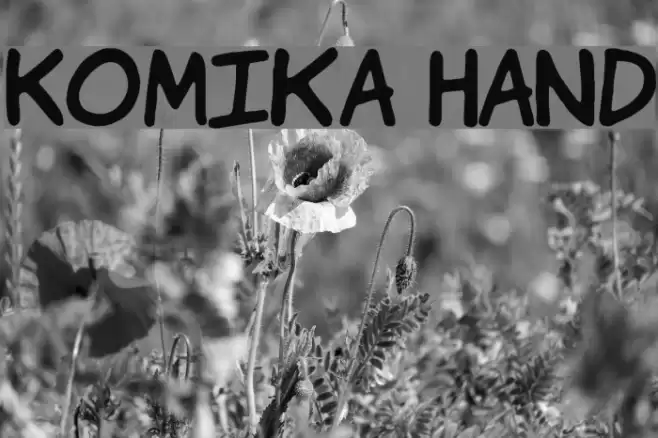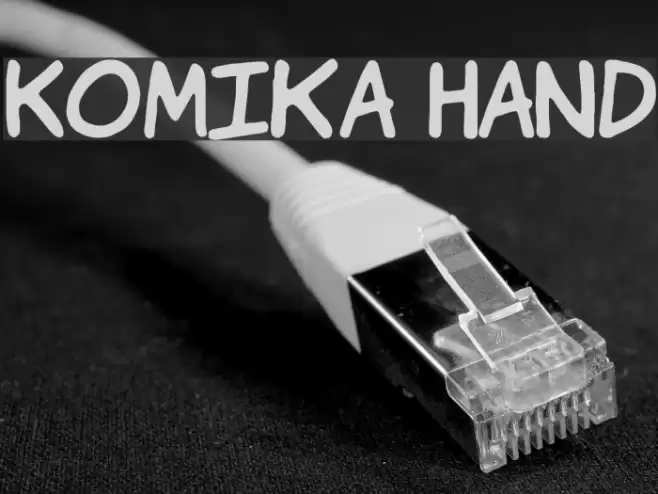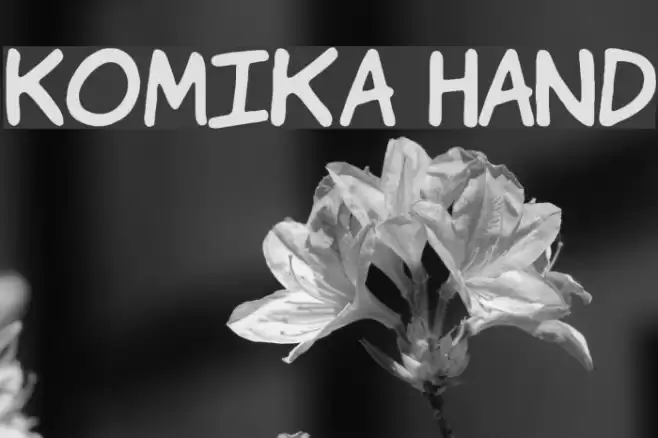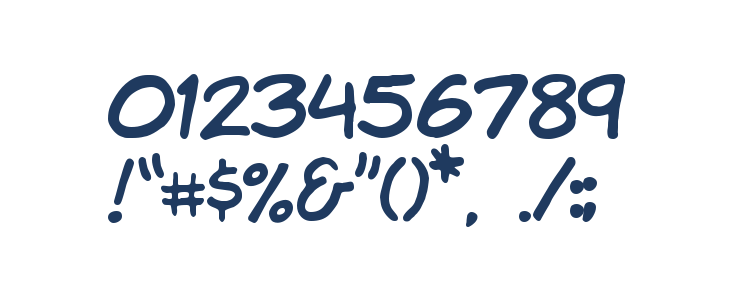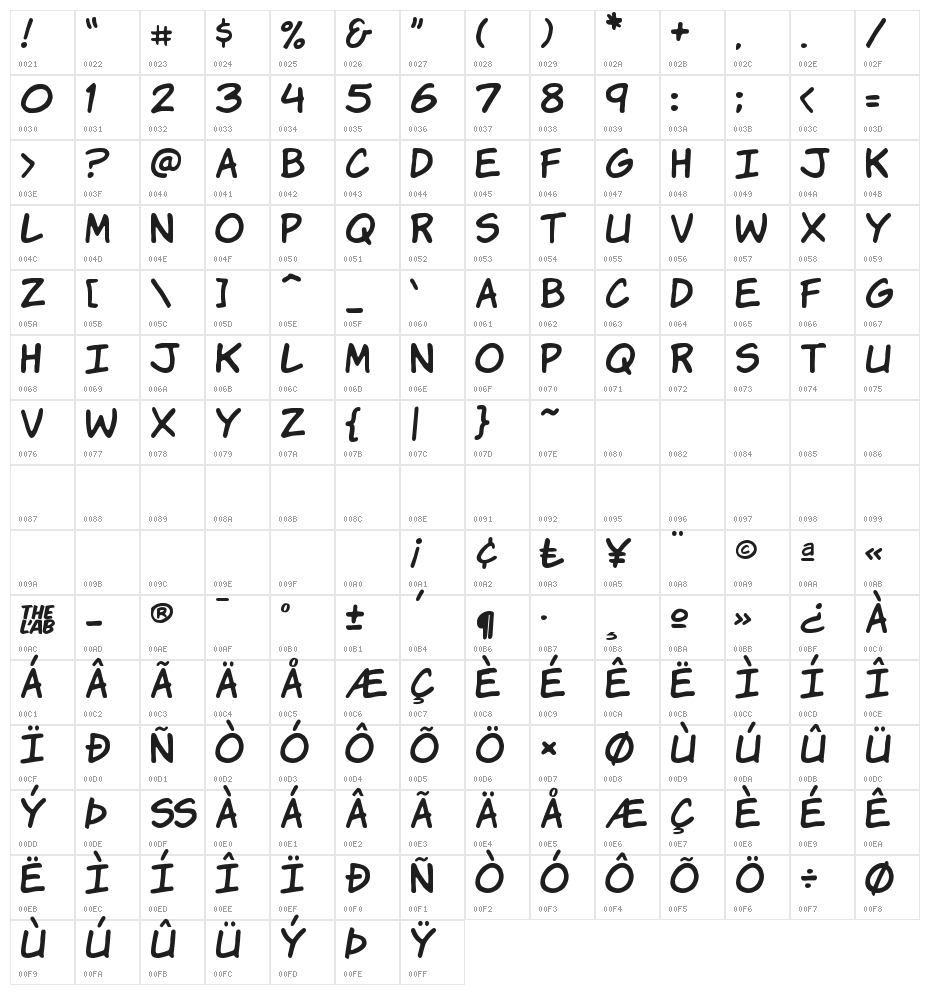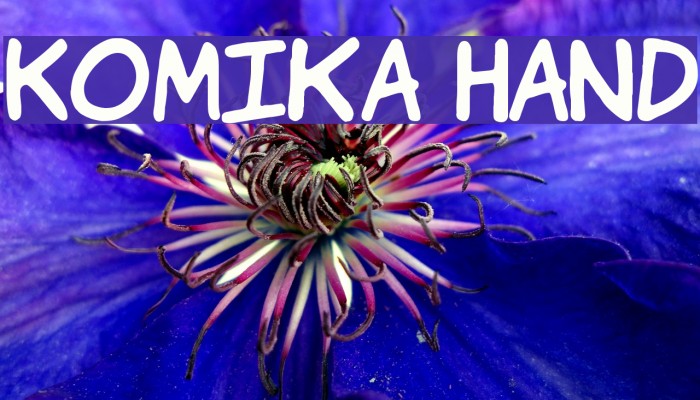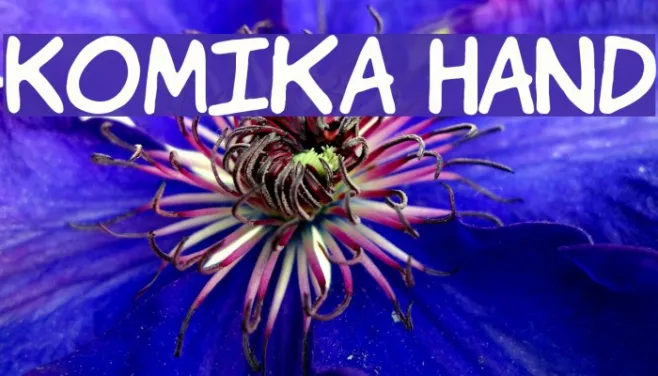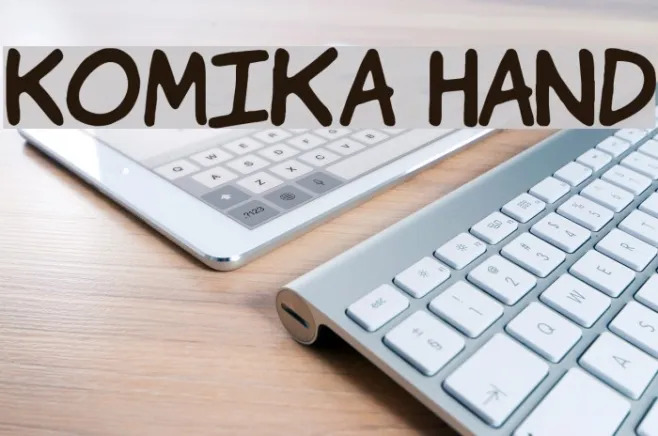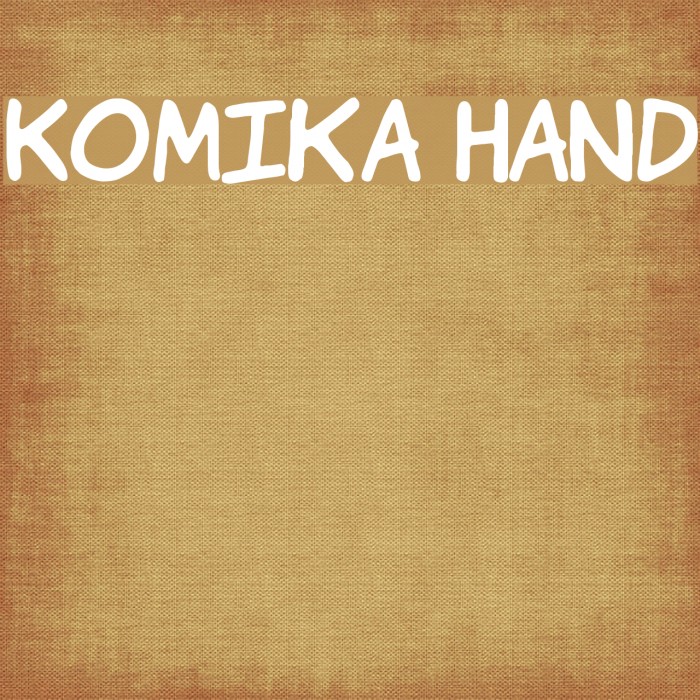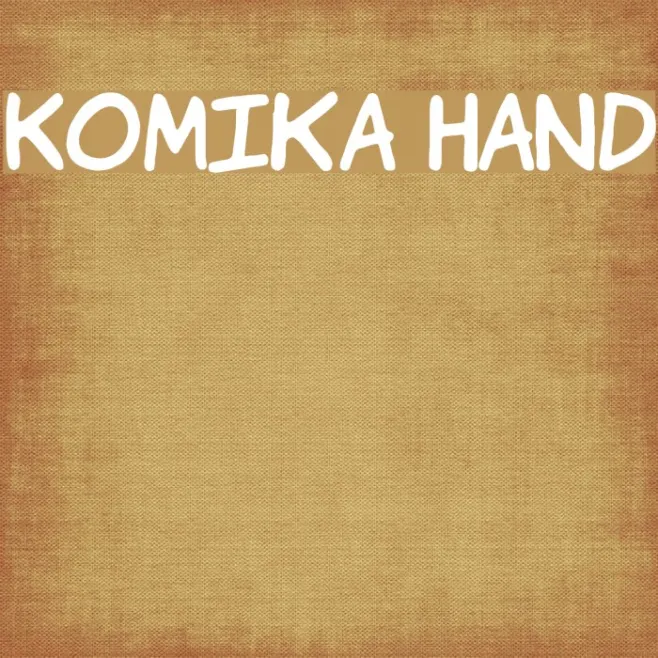
Komika Hand Font
Komika Hand Description
This playful and energetic font features a handwritten style with bold, rounded characters that convey a sense of fun and informality. The letters are slightly slanted, adding a dynamic feel, while the strokes are thick and consistent, providing a strong visual impact. The font maintains a casual and approachable aesthetic, making it suitable for projects that require a friendly and engaging tone. The spacing between characters is balanced, ensuring readability while maintaining its lively appearance. Overall, this font is ideal for designs that aim to capture attention with a whimsical and informal touch.
A bold, handwritten font with a playful and energetic style from Comic fonts.
- Proposed Projects: Ideal for comic books, children's books, playful branding, and informal event invitations.
- Overall Style: Playful
- Use Case: Headlines, Logos, Informal Text